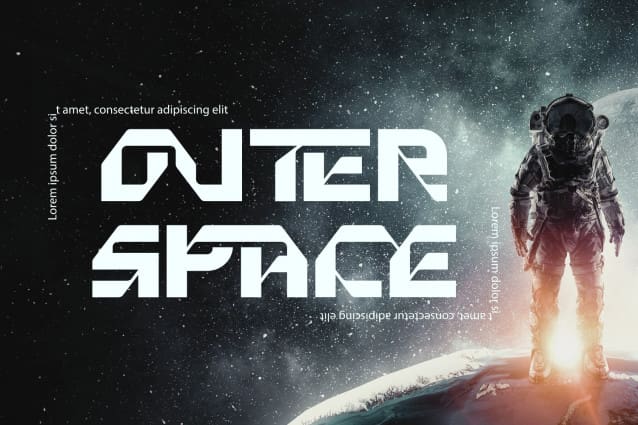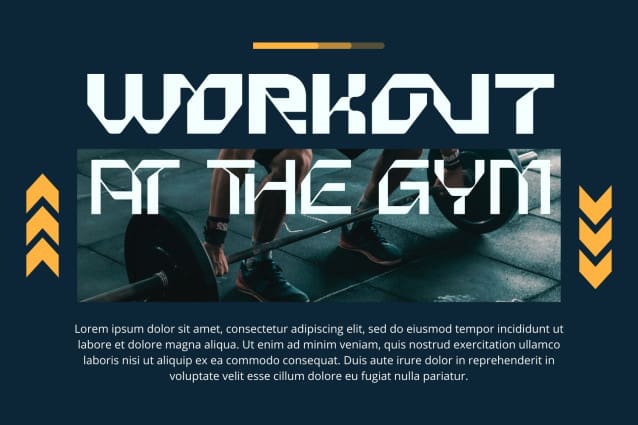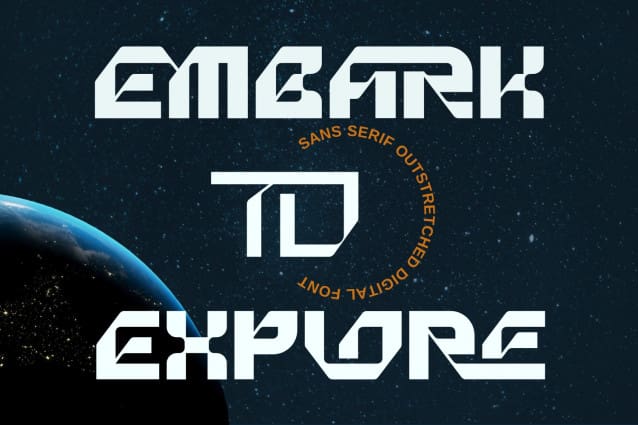
Embark To Explore Font
Embark To Explore Font, a futuristic technology font that combines modern and innovative aesthetics. Designed to create a revolutionary visual experience, Themiru brings an elegant and efficient futuristic touch to every letter. Add it to your most creative ideas and notice how it makes them come alive!
Embark To Explore was built with OpenType features and includes 100 ligatures, alternate, numbers, punctuation, and it also supports other languages.